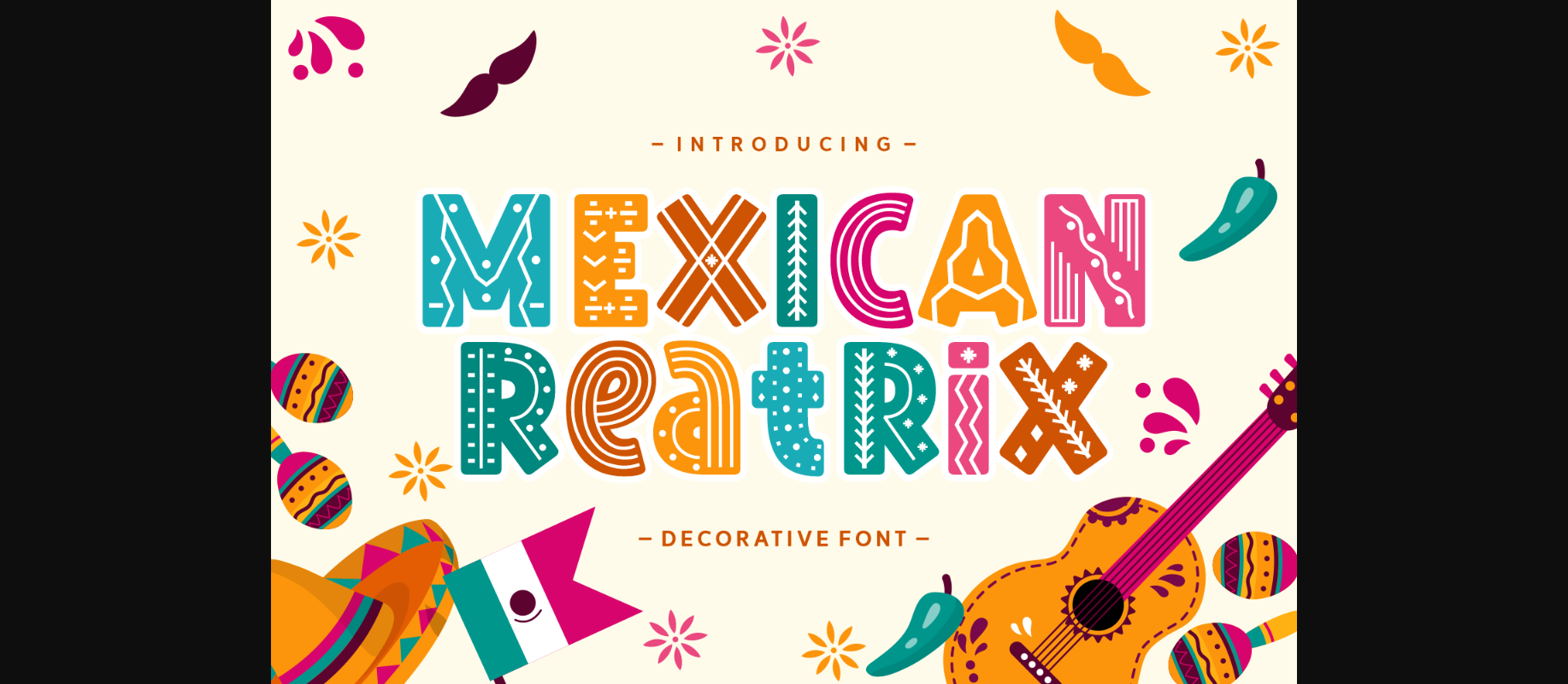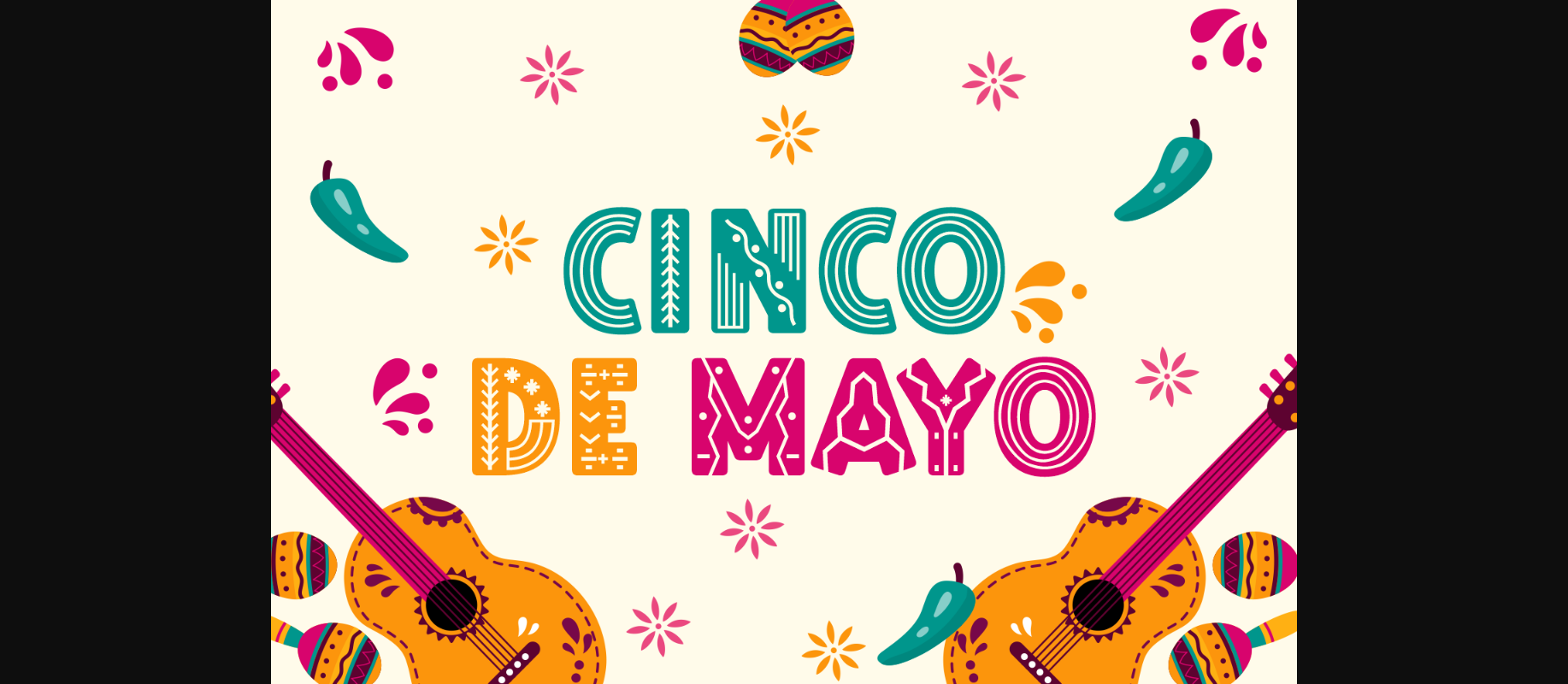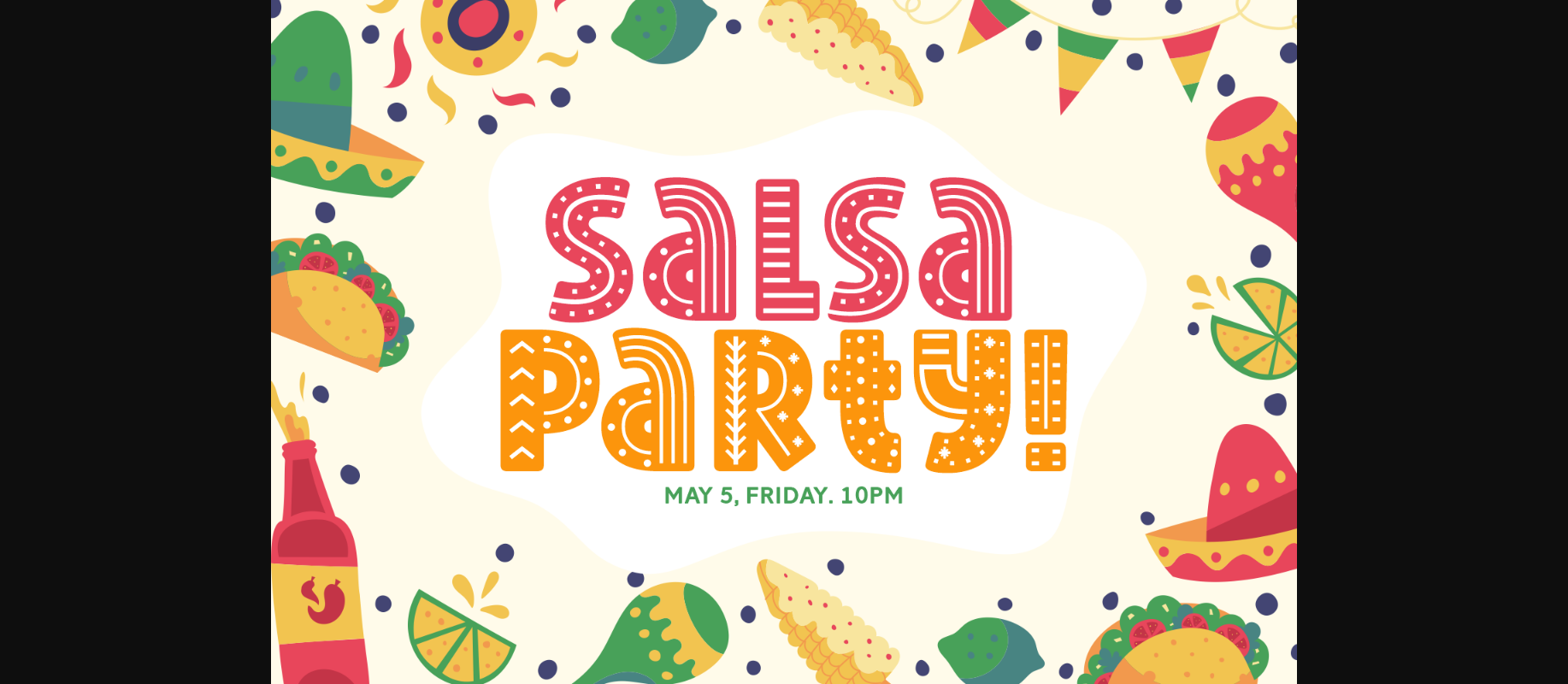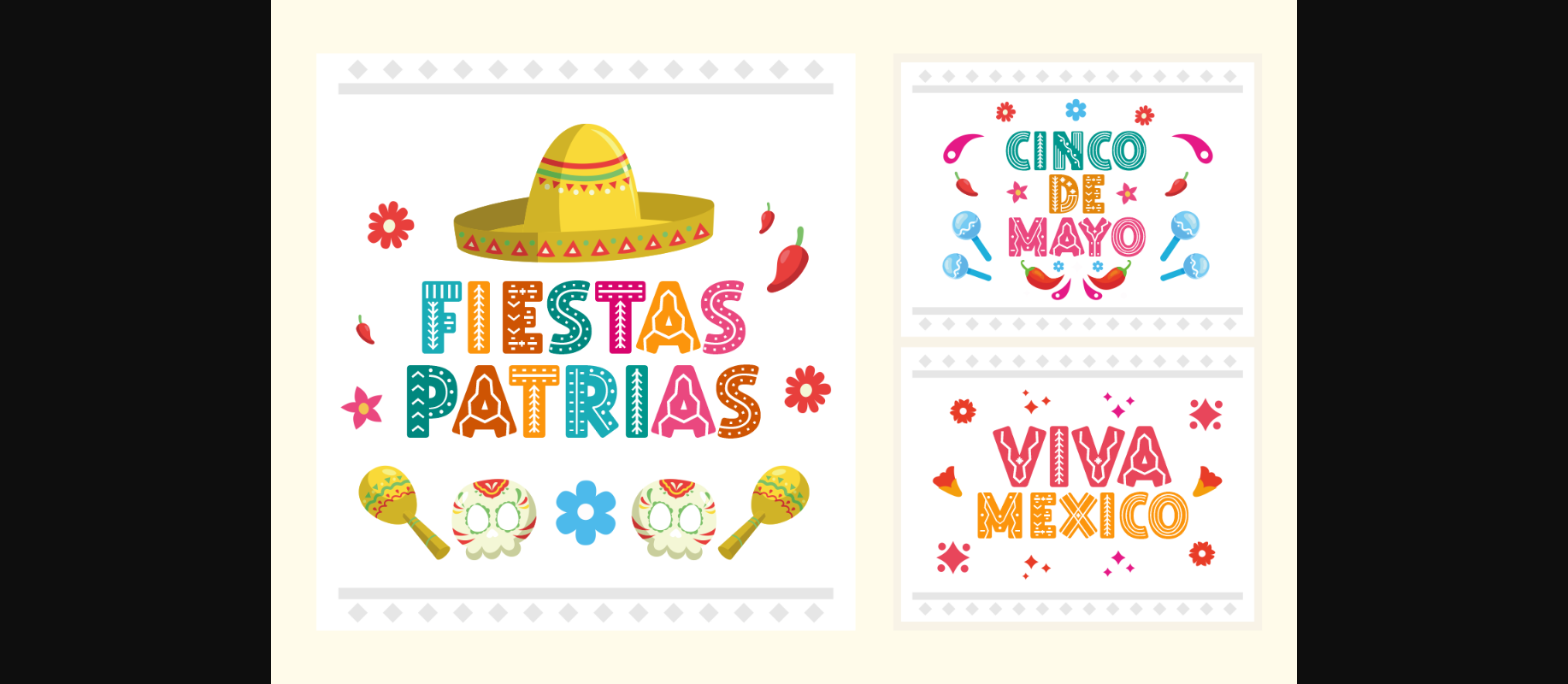
About Mexican Reatrix Font
Mexican Reatrix is a decorative font that will add a touch of celebration to any design. With its bold and vibrant lettering, this font is perfect for creating invitations, banners, and other designs for special occasions. Festive Flair features unique decorative elements that will make your designs stand out and leave a lasting impression.